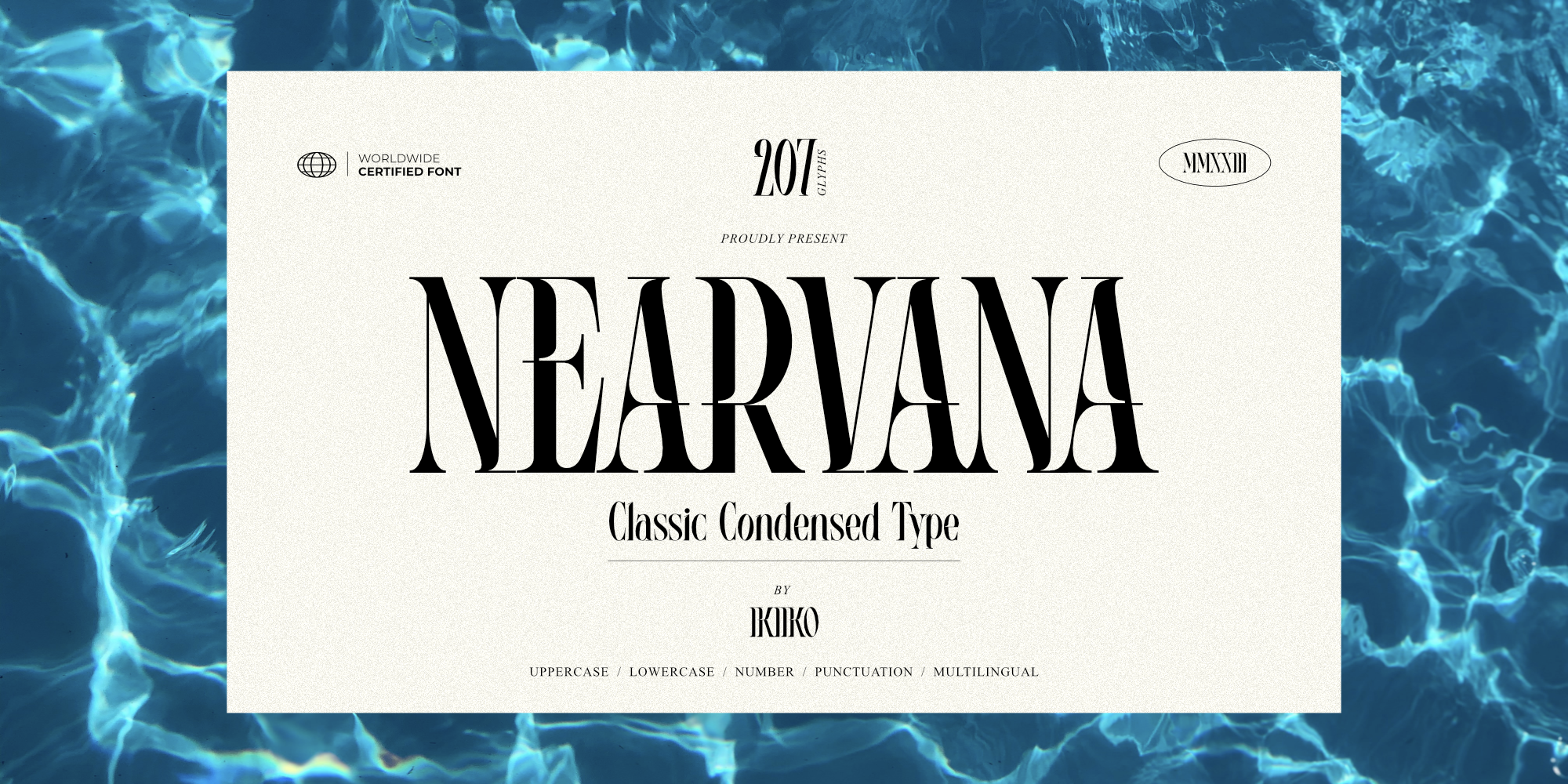
Nearvana Font is perfect for spiritual wellness centers, meditation retreat branding, mindfulness app interfaces, yoga studio signage, holistic healing practices, enlightenment workshops, peaceful sanctuary materials, conscious lifestyle brands, and transcendent social media content. This serene typeface brings spiritual awakening and inner peace to both digital and print design applications.
Nearvana Font is exciting because it captures the essence of spiritual enlightenment and peaceful transcendence, making it an exceptional choice for designers who want to convey inner harmony with authentic spiritual wisdom. Its balanced letterforms and tranquil character provide the perfect combination of spiritual depth and mindful functionality, ensuring your projects communicate peace, enlightenment, and spiritual excellence that resonates with souls seeking genuine awakening and transcendent experiences.
The Nearvana Font family includes enlightened weight variations and spiritual elements, featuring light, regular, and medium weights with complementary meditative styles, peaceful ligatures, and consciousness-inspired decorative touches. Each style maintains consistent spiritual aesthetics while offering flexibility for different wellness applications, allowing designers to create harmonious visual systems that reflect spiritual wisdom and enlightened consciousness.
Whether you're designing for wellness brands, spiritual organizations, or consciousness-based businesses, Nearvana Font Free Download delivers authentic spiritual appeal and enlightened sophistication that connects with audiences seeking genuine inner peace and spiritual growth. This premium typeface offers designers the tranquil elegance and spiritual depth needed to create designs that communicate mindful living, spiritual awakening, and consciousness excellence effectively. The font's peaceful character makes it perfect for spiritual branding, wellness campaigns, and consciousness applications where authentic enlightenment is essential. Download Nearvana Font today and enlighten your creative projects with genuine spiritual sophistication and transcendent typography excellence that defines conscious design.